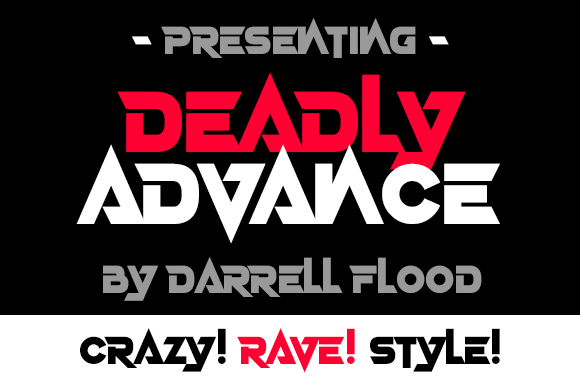
Introduction to Deadly Advance Font
As a designer, there’s nothing quite like the thrill of bringing a creative project to life. The moment when all the elements come together and you see your vision take shape is truly magical. But, it’s not just about having a great idea – it’s also about having the right tools to make it happen. That’s where fonts like the Deadly Advance Font come in, offering a unique blend of style and functionality that can elevate any design to the next level.
With its energetic display style and edgy elements, the Deadly Advance Font is perfect for sci-fi and tech themes, music venues, and science presentations. Whether you’re working on a high-profile project or just a personal design, this font is sure to make a statement. And, the best part? It’s available for free download, making it an invaluable resource for designers of all levels.
Key Features of Deadly Advance Font
- Includes multiple font styles and weights, perfect for adding a touch of sophistication to your design.
- Unique characteristics include bold lines, sharp edges, and a futuristic aesthetic, making it perfect for modern design projects.
Honest Review: Deadly Advance Font
I recently had the chance to work with the Deadly Advance Font, and I must say it’s a game-changer for any creative project. The font’s edgy and modern design makes it perfect for adding a touch of sophistication to any design.
Here are some of the things that work well with the Deadly Advance Font:
- High-quality design: The font is crisp and clean, making it perfect for both digital and print projects.
- Transparent background: This makes it easy to customize and pair with other design elements.
- Limited character set: The font doesn’t have a comprehensive character set, which may limit its use in certain projects.
- Not suitable for all audiences: The font’s edgy design may not be suitable for all audiences, especially those with sensitive tastes.
Overall, I’m impressed with the Deadly Advance Font, and I think it’s a great addition to any designer’s toolkit. With a little creativity, it can add a lot of value to any creative project.
Tips for Getting the Most Out of the Deadly Advance Font
For the best results, use the Deadly Advance Font in conjunction with a high-quality design resource. Experiment with different font sizes and colors to create a unique and eye-catching design. You can also use the font in combination with other design elements to create a cohesive and professional look.
The Deadly Advance Font is perfect for a variety of creative projects, including logos, business cards, and social media graphics. Its high-quality design and transparent background make it an ideal choice for designers looking to create stunning and professional designs.